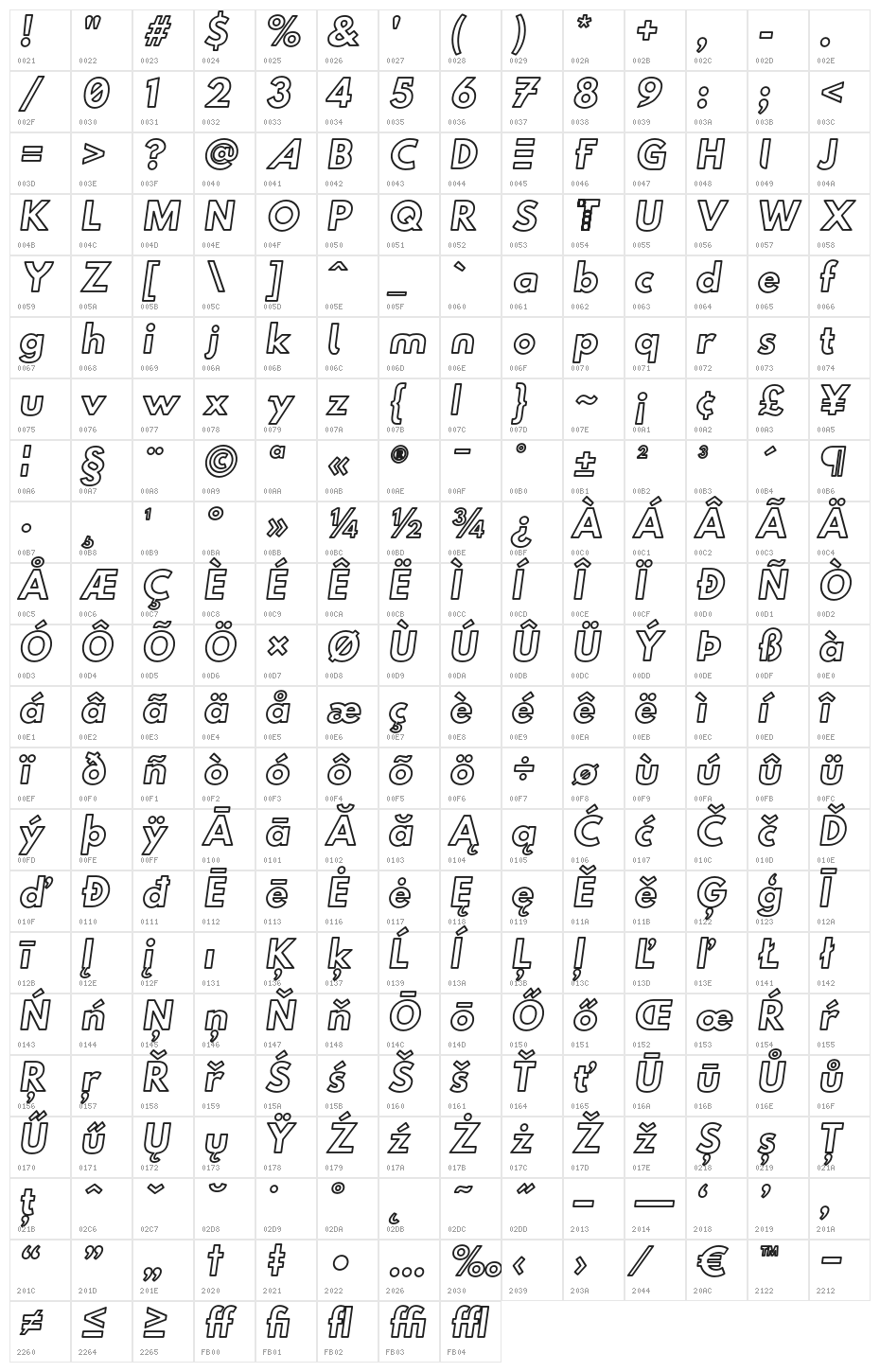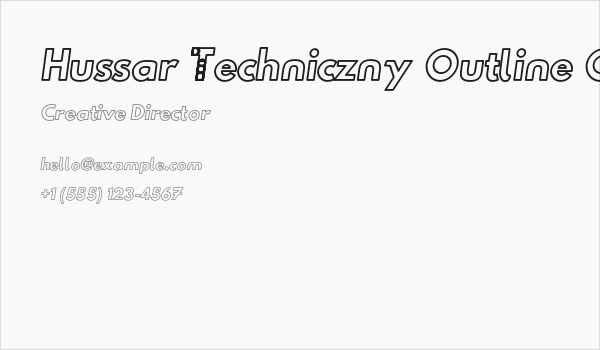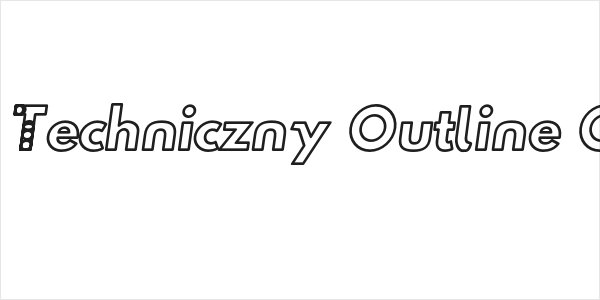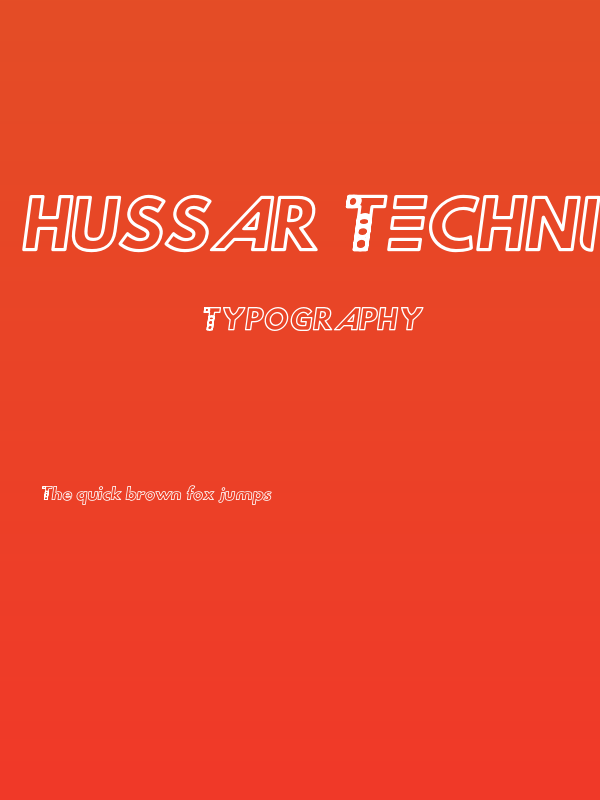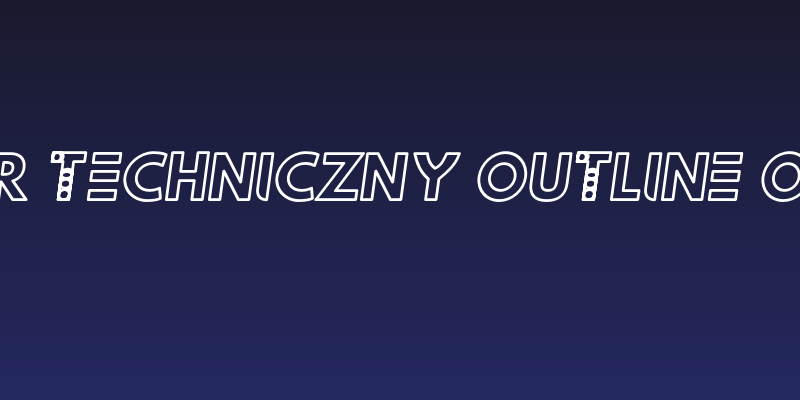
Hussar Techniczny Outline Oblique Font
Hussar Techniczny Outline Oblique Description
This font features a bold, outlined style with an oblique slant, giving it a dynamic and modern appearance. The uppercase and lowercase letters are consistent in their geometric design, with clean lines and a uniform stroke width. The numerals and special characters maintain the same outlined aesthetic, ensuring a cohesive look across all characters. The font's open and airy design makes it suitable for projects that require a contemporary and eye-catching typeface. Its unique outline style adds a layer of depth and interest, making it stand out in various design applications.
| Proposed Projects | Ideal for headlines, posters, branding, and any design needing a striking and modern typeface. |